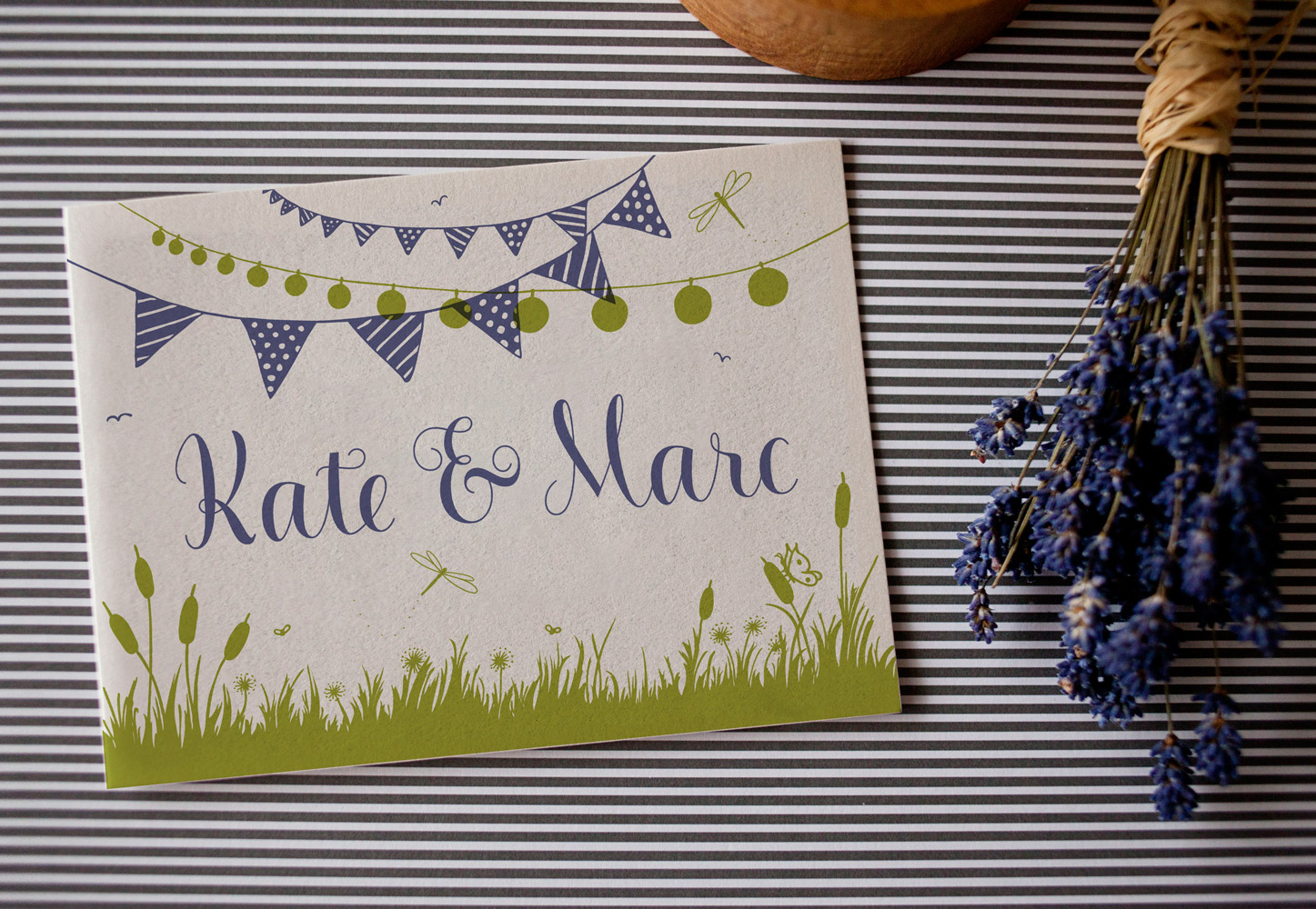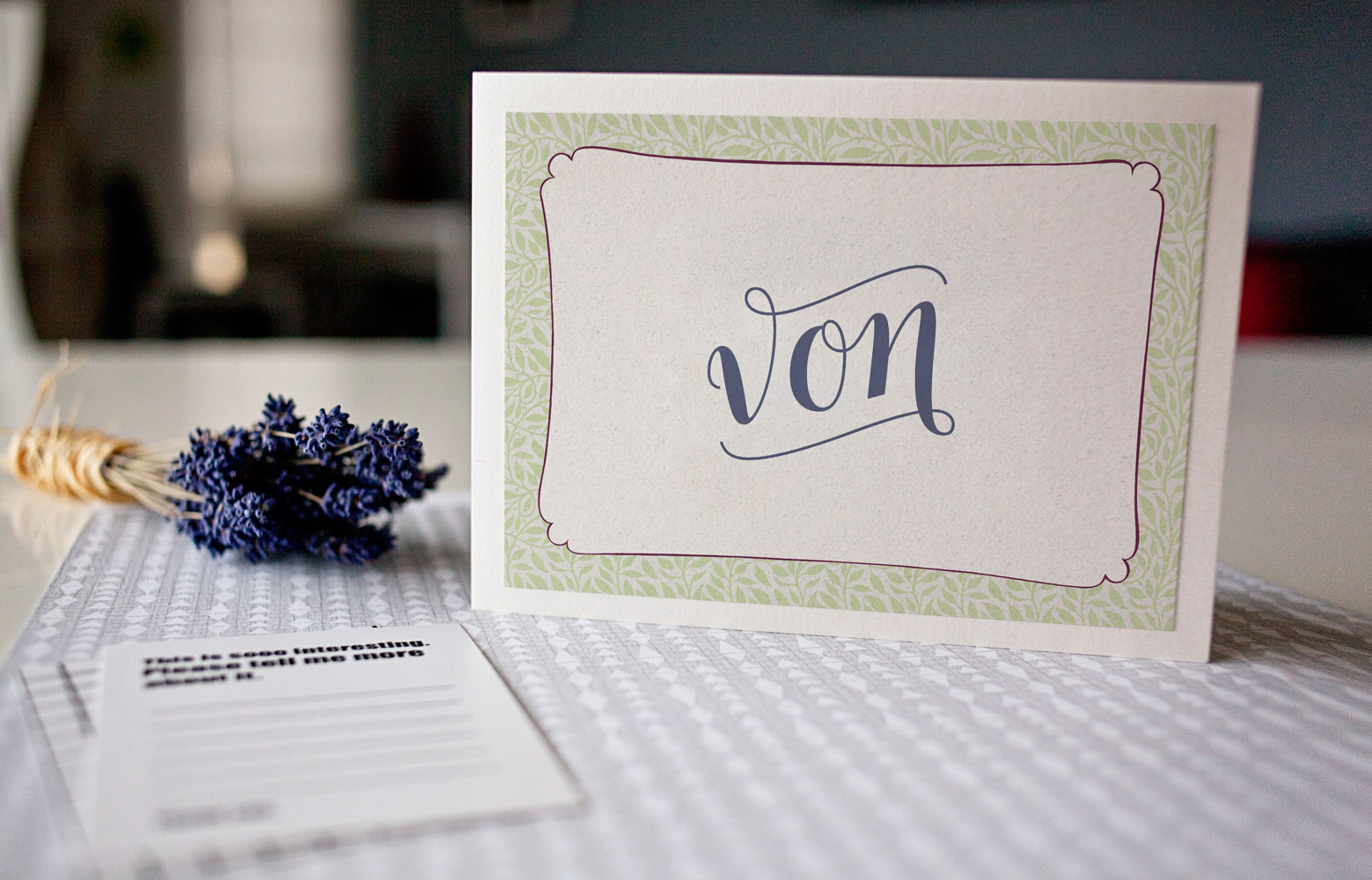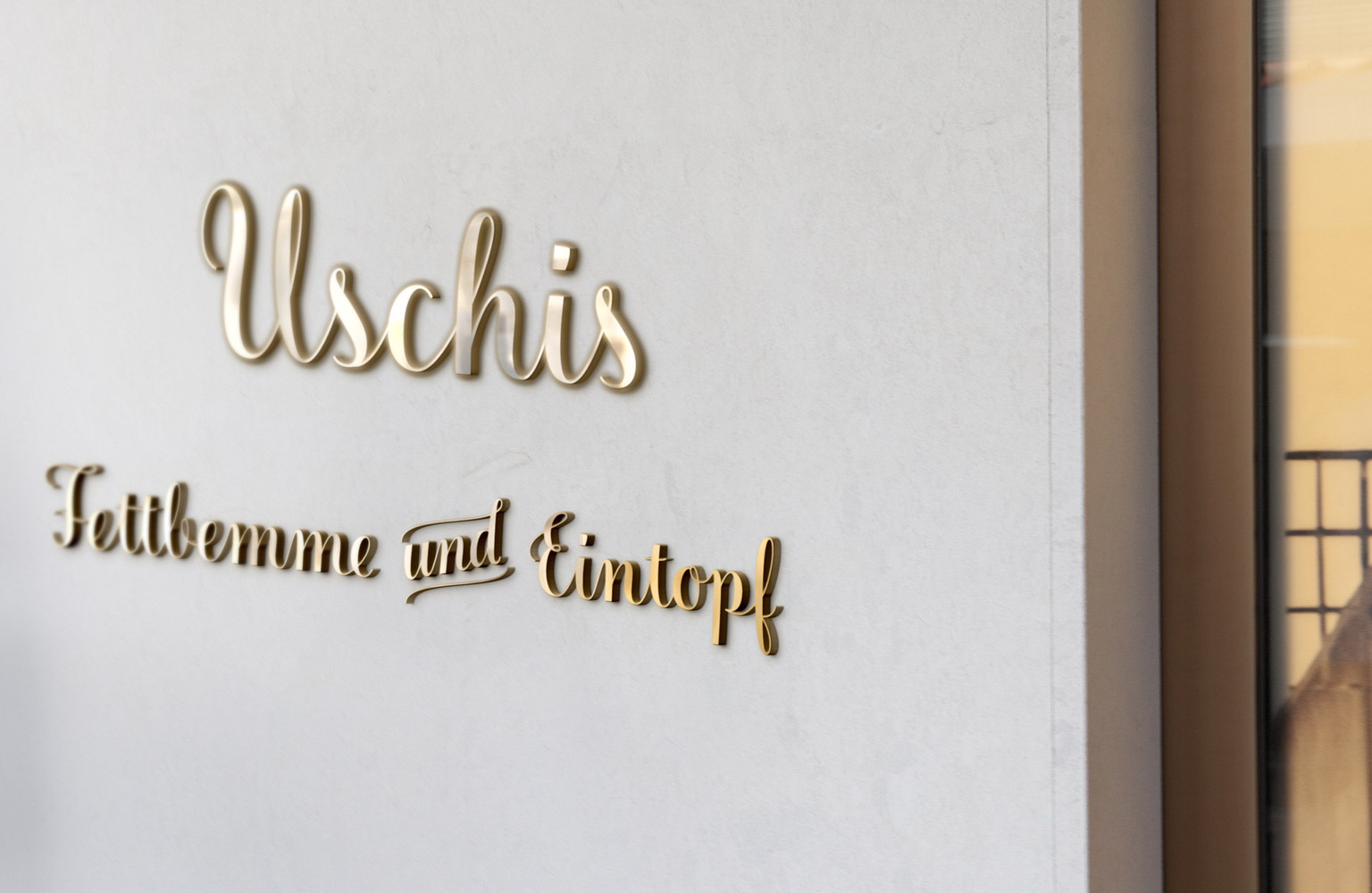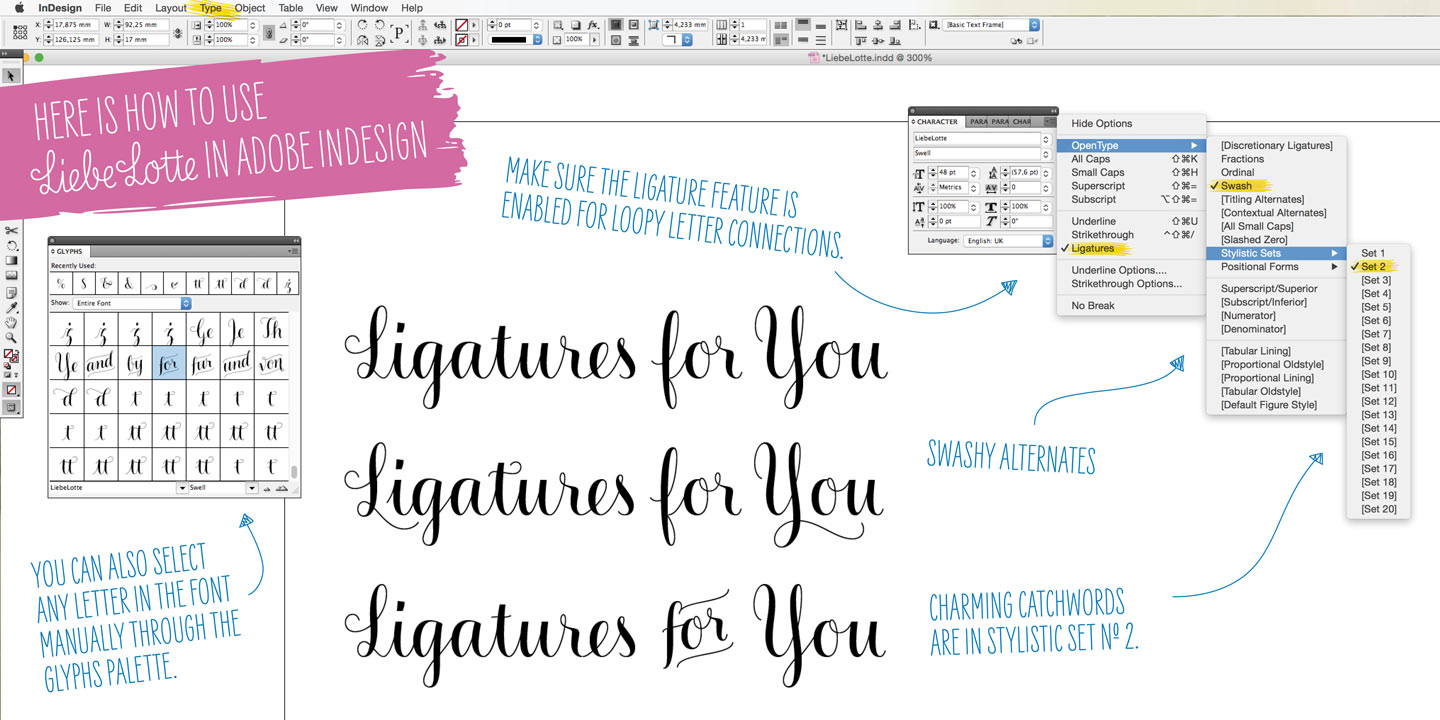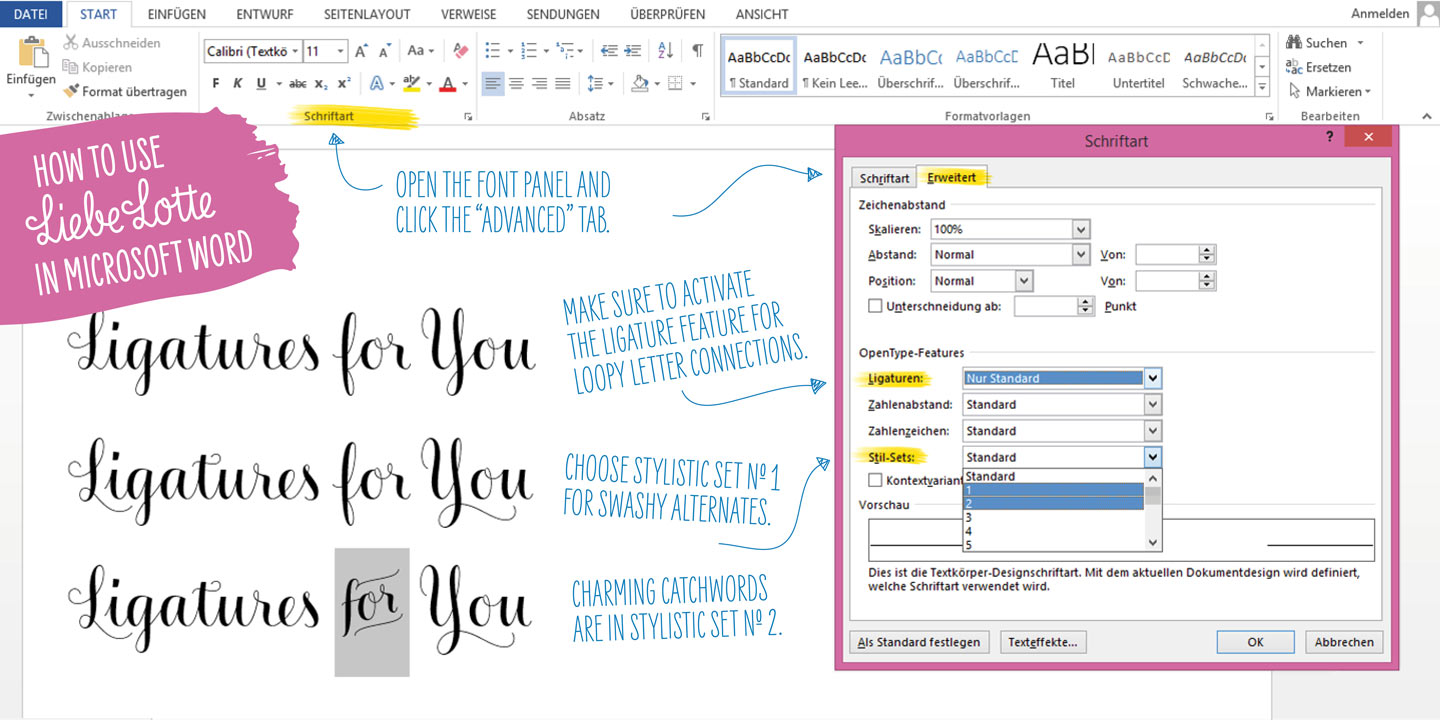
Liebe​Lotte Swell
Have you heard? It’s in the stars: next July we collide with Mars! But until then, there are plenty of good reasons to treat yourself to this swell typeface.
LiebeLotte Swell is a great investment for letter lovers who design beautiful things for their friends and family and also for designers who love their clients:
Your next birthday invitation? Check. That photo album you’re making for your mom? Check. The business cards you’re designing for your friend who runs a deli? Check. There are so many nice things that want to be designed, and LiebeLotte Swell wants to be your assistant in the old-fashioned way: polite and friendly.
Just like her monolinear siblings in the LiebeLotte family, charming LiebeLotte Swell knows how to impress with her perfectly drawn curves and her perfectly connected loopy letterforms.
Of course LiebeLotte Swell comes with a state-of-the-art character set. She also sports a variety of ligatures and alternative forms, available through OpenType features.